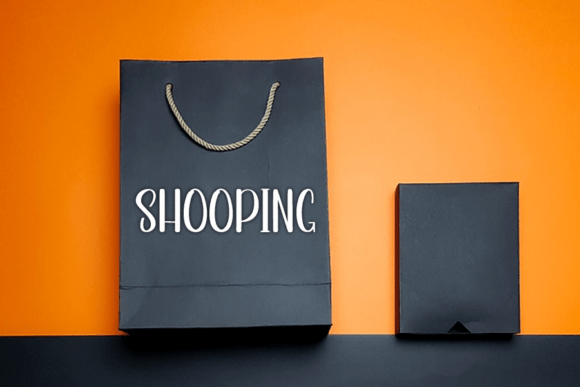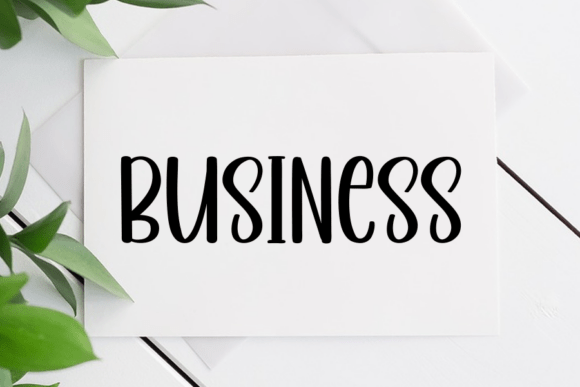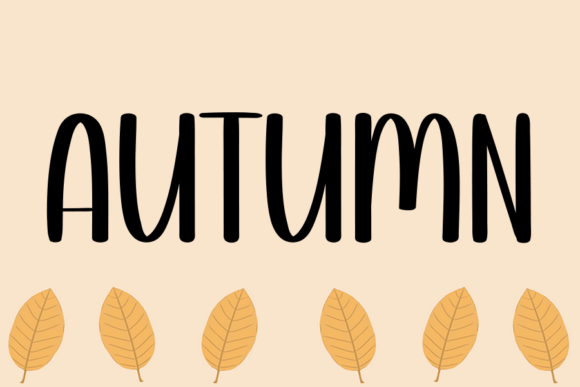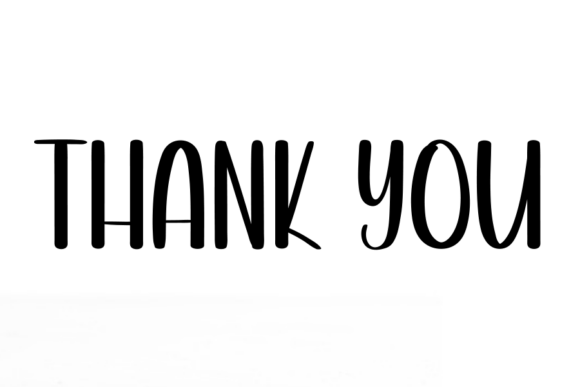
Introducing Costume Font: The Sweet and Elegant Handwritten Font for Designers
Are you looking for a font that can add a touch of elegance and romance to your designs? Look no further than Costume Font, a beautiful and cursive handwritten font that is perfect for a variety of design projects. In this article, we’ll take a closer look at the features and benefits of Costume Font, and explore how it can be used to elevate your designs.
What is Costume Font?
Costume Font is a sweet and cursive handwritten font that is designed to add a touch of joy and romance to your designs. With its gentle and flowing curves, this font is perfect for creating elegant and sophisticated designs that are sure to impress. Whether you’re working on a branding project, designing a logo, or creating wedding materials, Costume Font is the perfect choice.
Key Features of Costume Font
So, what makes Costume Font so special? Here are just a few of its key features:
- Sweet and cursive handwritten style: Costume Font features a beautiful, handwritten style that is both elegant and casual.
- Versatile and adaptable: This font is perfect for a wide range of design projects, from branding and logos to wedding materials and greeting cards.
- Easy to read and understand: Despite its elegant and cursive style, Costume Font is easy to read and understand, making it perfect for designs that require a clear and concise message.
- Fancy and elegant, yet casual: Costume Font strikes the perfect balance between elegance and casualness, making it perfect for designs that require a touch of sophistication without being too formal.
Use Cases for Costume Font
So, how can you use Costume Font in your designs? Here are just a few ideas to get you started:
- Branding and logos: Costume Font is perfect for creating elegant and sophisticated brand identities that are sure to impress.
- Wedding materials: From wedding invitations to wedding cards, Costume Font is the perfect choice for creating beautiful and romantic wedding materials.
- Greeting cards: Whether you’re creating birthday cards, anniversary cards, or holiday cards, Costume Font is the perfect choice for adding a touch of elegance and romance.
- Fashion and lookbooks: Costume Font is perfect for creating stylish and sophisticated fashion designs that are sure to turn heads.
- Marketing and promotion: From brochures to flyers, Costume Font is the perfect choice for creating marketing materials that are both elegant and effective.
Why Choose Costume Font?
So, why should you choose Costume Font for your design projects? Here are just a few reasons:
- Unique and distinctive style: Costume Font features a unique and distinctive style that is sure to set your designs apart from the crowd.
- Elegant and sophisticated: This font is perfect for creating elegant and sophisticated designs that are sure to impress.
- Easy to use and versatile: Costume Font is easy to use and versatile, making it perfect for a wide range of design projects.
- High-quality and professional: With its high-quality and professional design, Costume Font is perfect for designers and crafters who demand the best.
In conclusion, Costume Font is a beautiful and elegant handwritten font that is perfect for designers and crafters who want to add a touch of sophistication and romance to their designs. With its unique and distinctive style, versatile and adaptable design, and high-quality and professional finish, Costume Font is the perfect choice for a wide range of design projects. So why wait? Download Costume Font today and start creating stunning designs that are sure to impress!